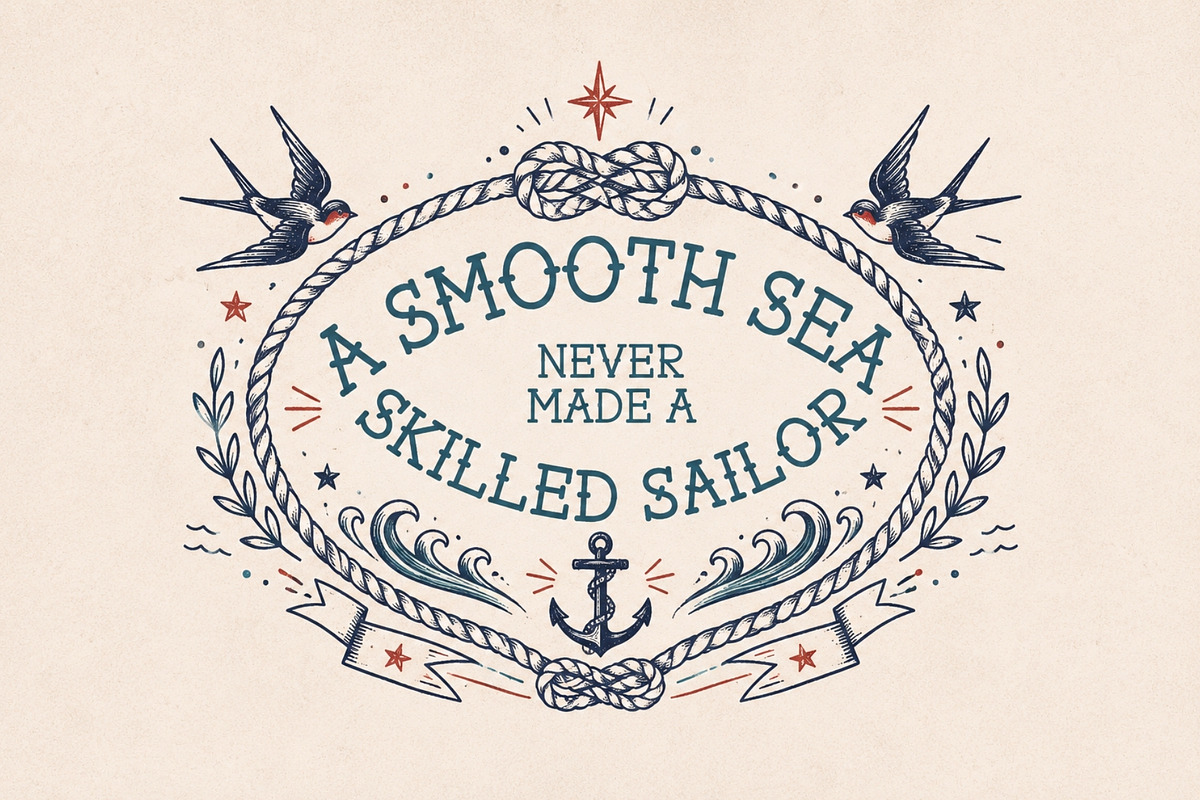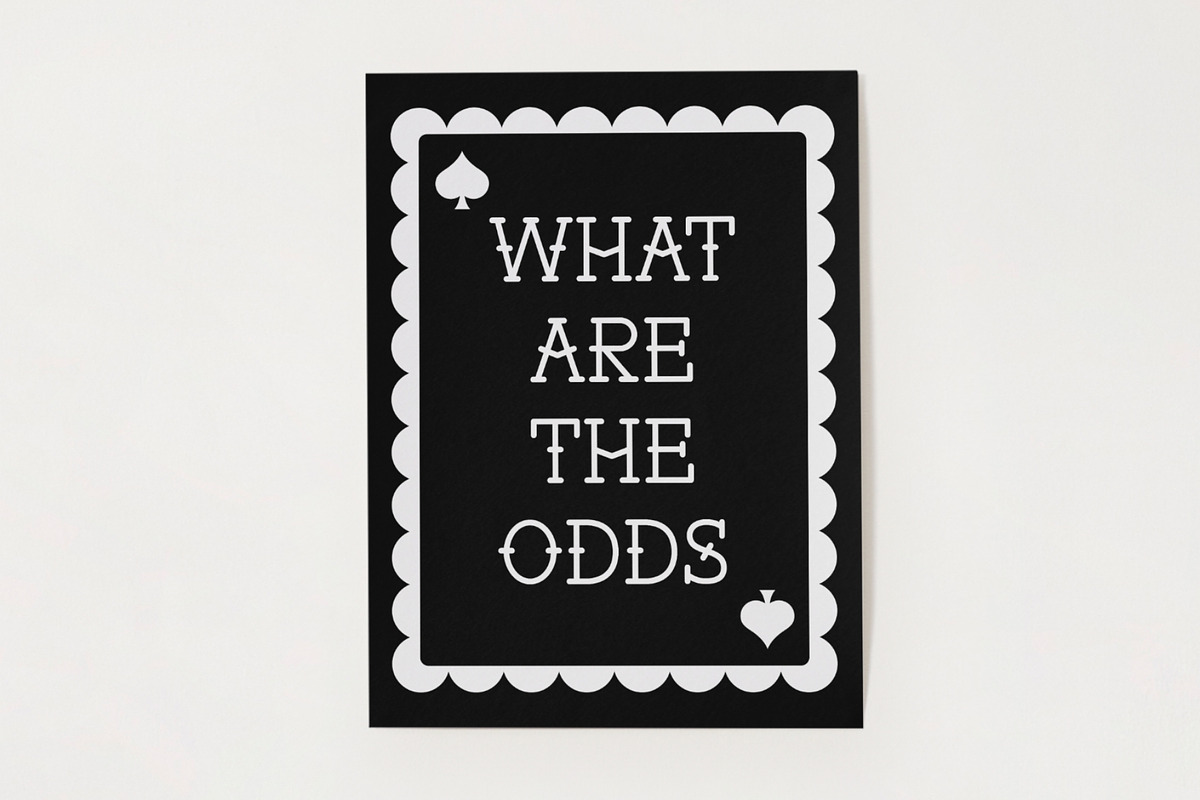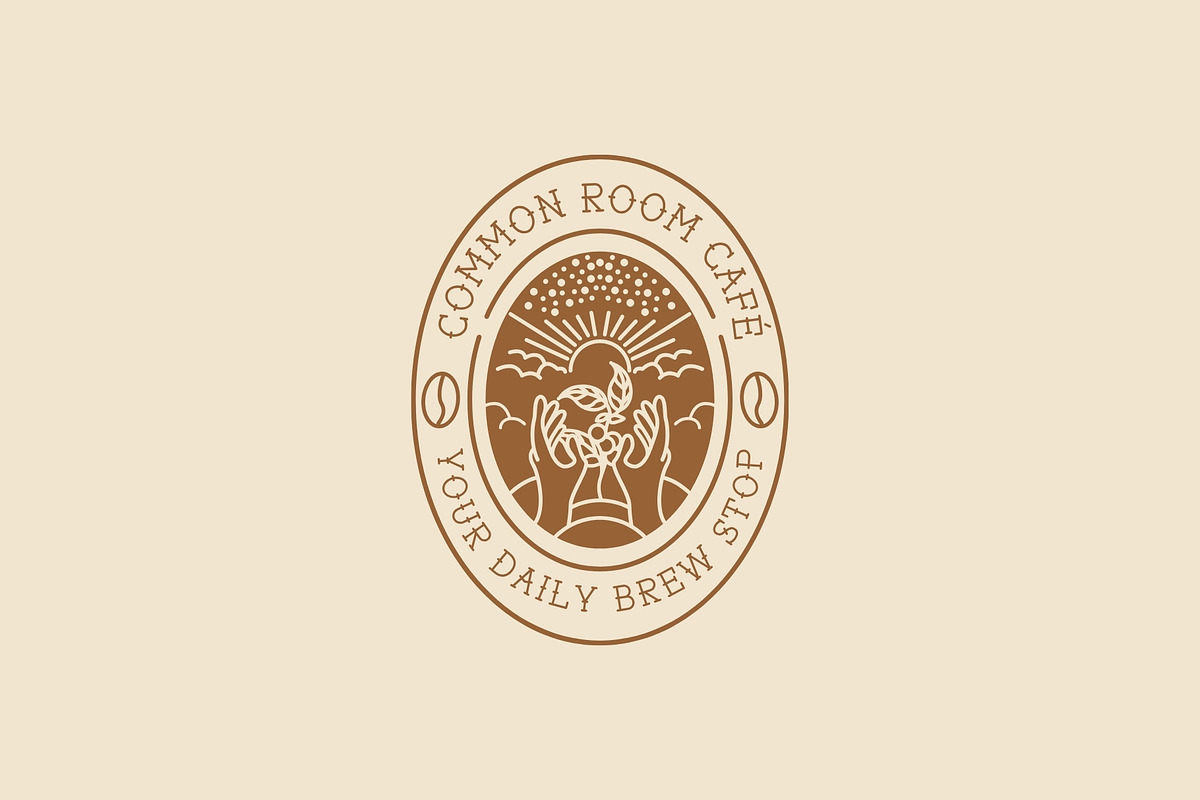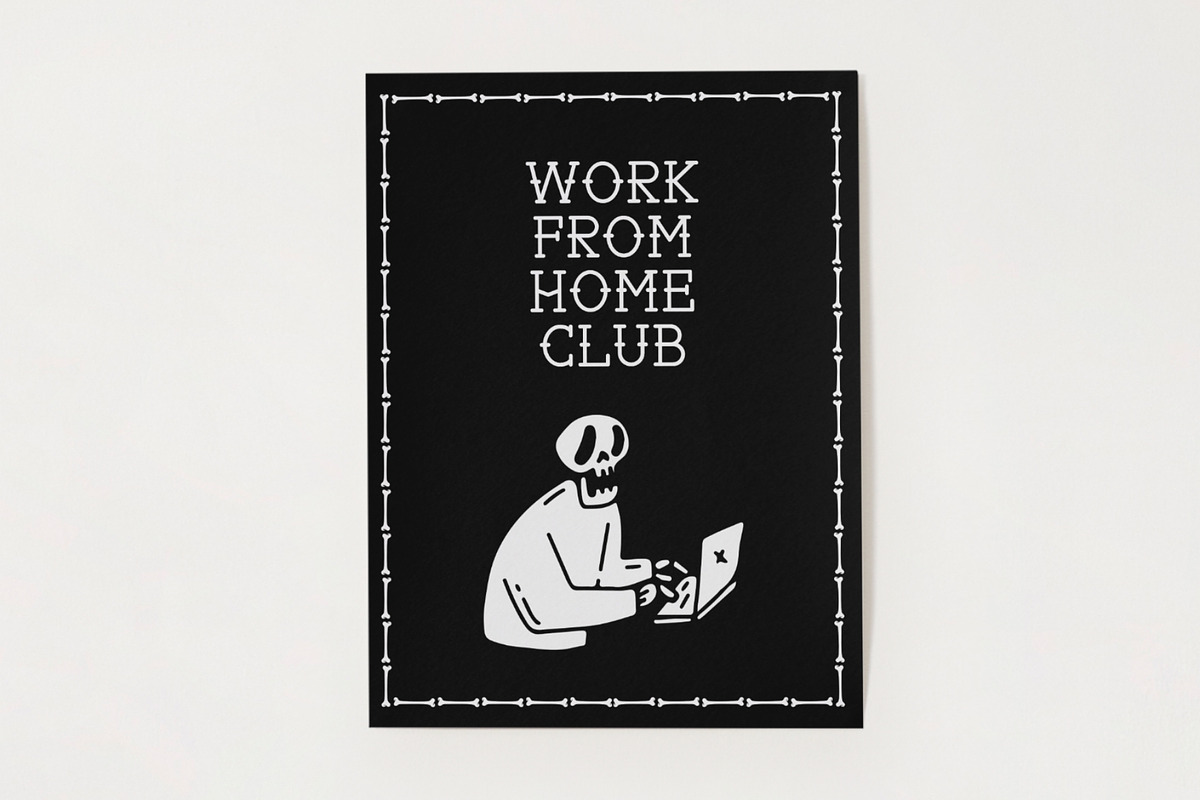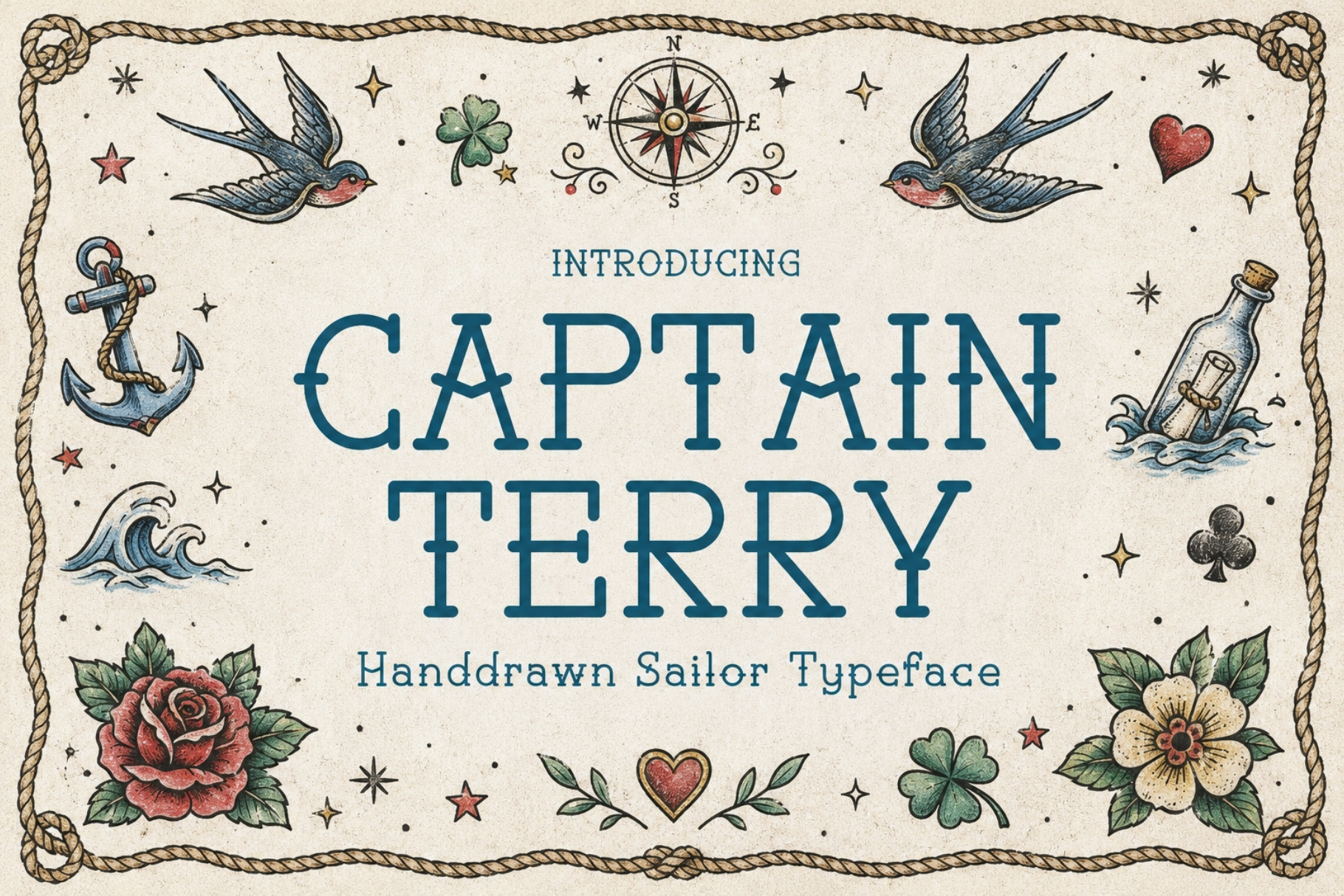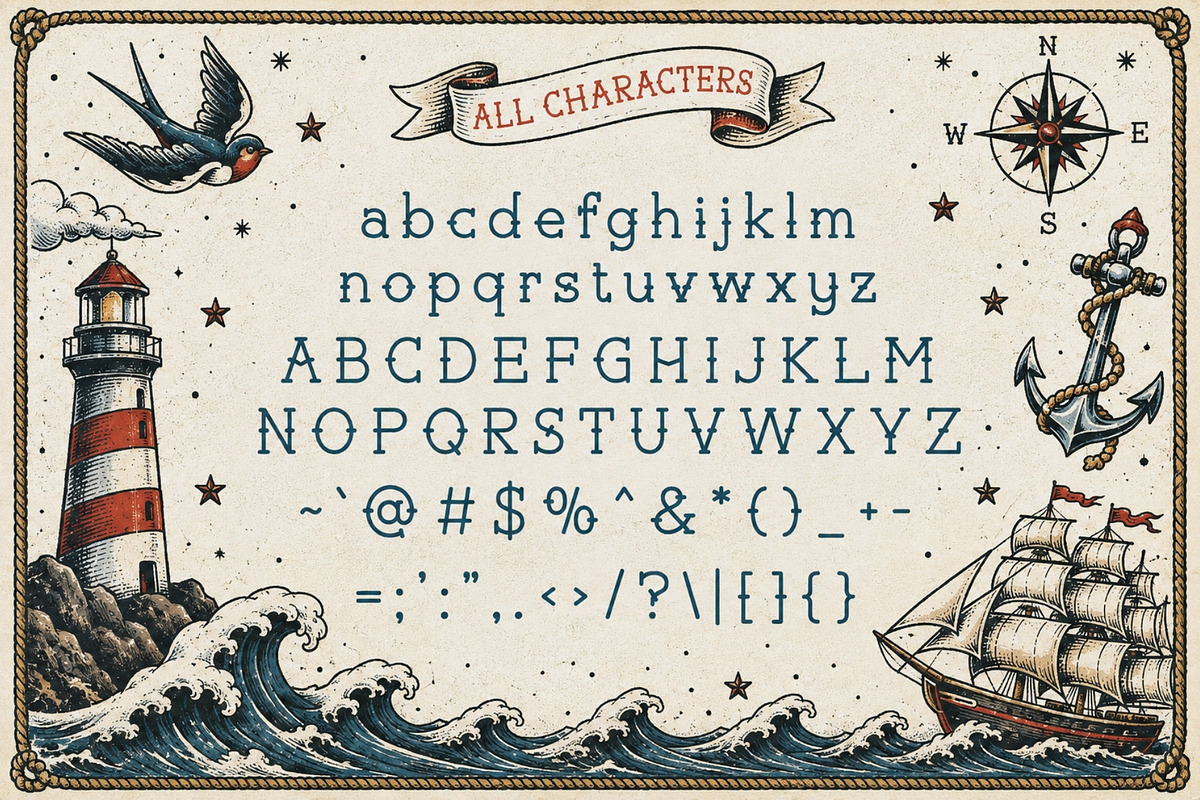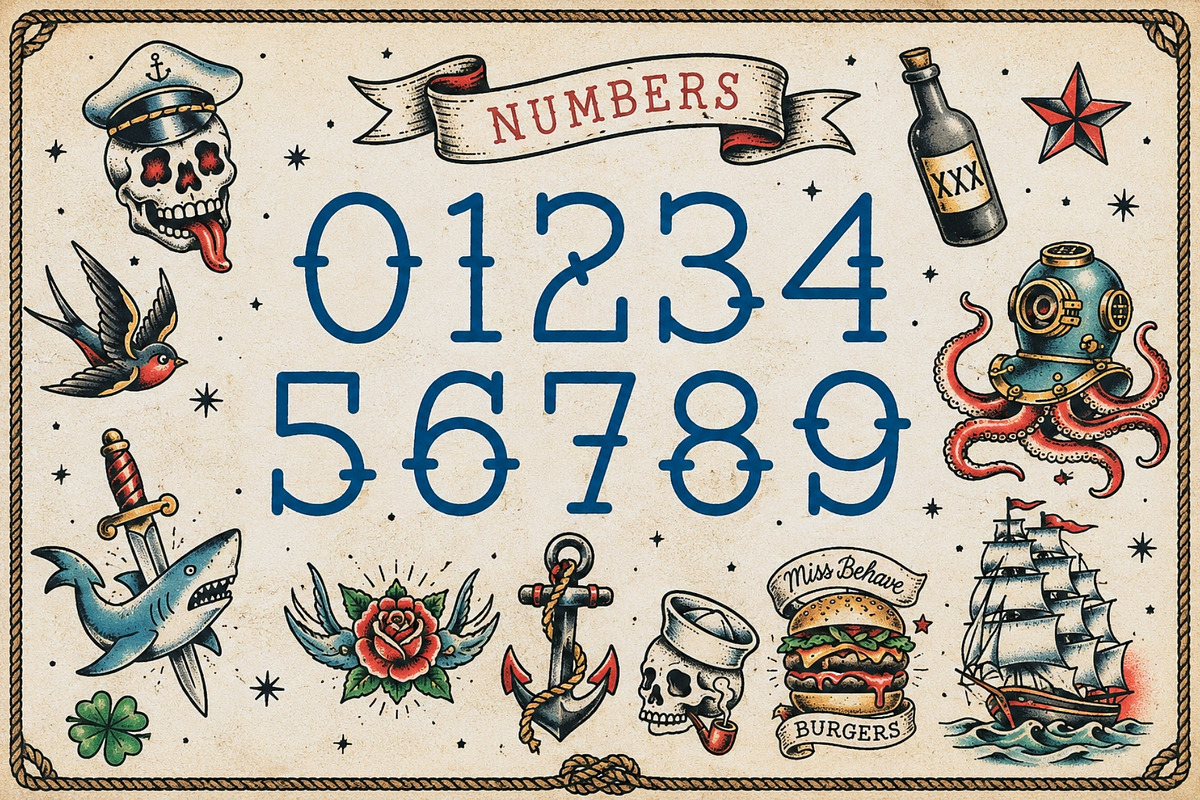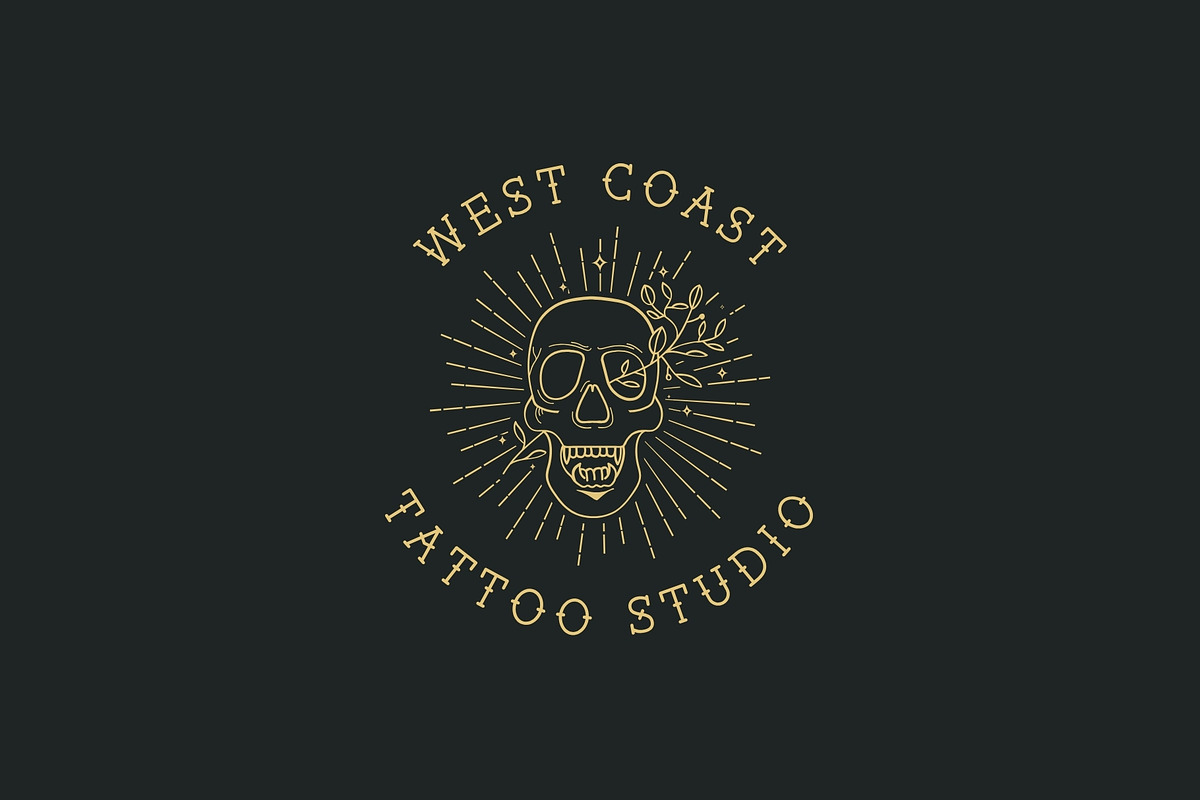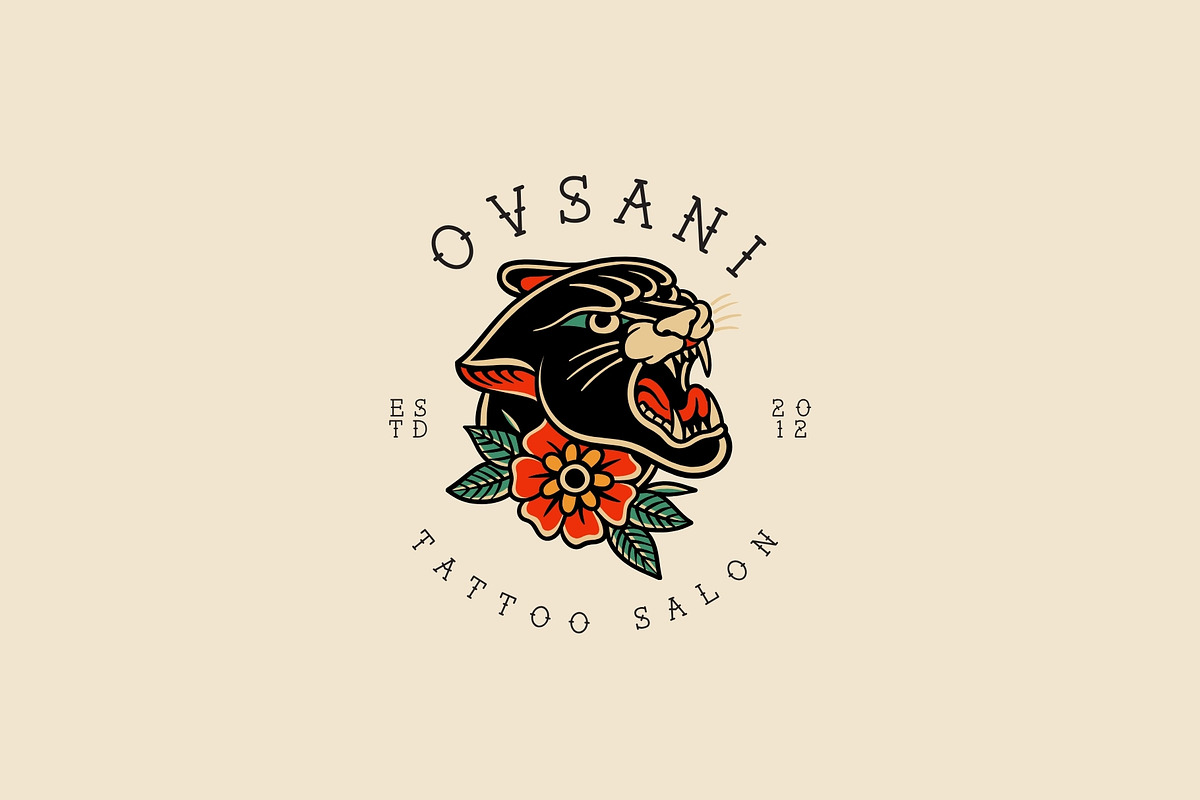
Captain Terry - American Tattoo Font
Meet Captain Terry, a hand-drawn vintage sailor typeface inspired by the bold lettering, nautical flash sheets, and old-school tattoo shops of traditional American tattoo culture.
Rough around the edges and packed with personality, Captain Terry feels like lettering pulled straight from a weathered sailor tattoo, hand-painted ship sign, or vintage flash sheet hanging on the wall of a classic tattoo parlor. Its imperfect hand-drawn construction gives every word an authentic illustrated quality, while its quirky shapes and rugged character make it instantly recognizable.
Captain Terry is especially at home alongside traditional tattoo-style artwork—think swallows, anchors, daggers, roses, snakes, panthers, ships, hearts, eagles, mermaids, and other bold old-school motifs. Pair it with your illustrations to create designs that feel nostalgic, rebellious, playful, and genuinely handmade.
Perfect for tattoo-inspired branding, apparel, posters, logos, merchandise, beer labels, barbershops, motorcycle graphics, surf brands, nautical artwork, sticker designs, packaging, album covers, restaurant branding, signage, and much more.
Whether you're designing a vintage sailor poster, building an old-school tattoo brand, or creating artwork that needs a little salt, grit, and character, Captain Terry brings the unmistakable spirit of traditional tattoo lettering to every project.